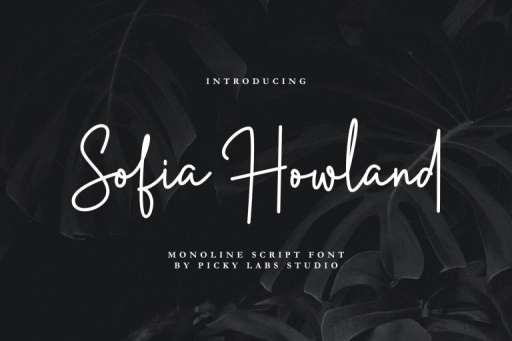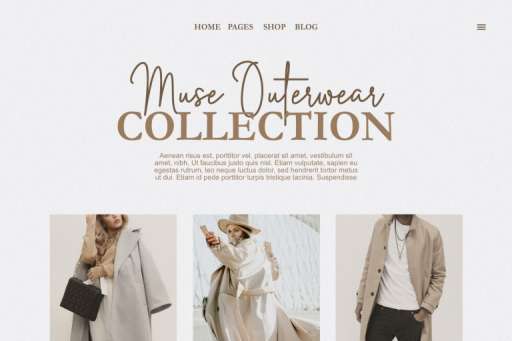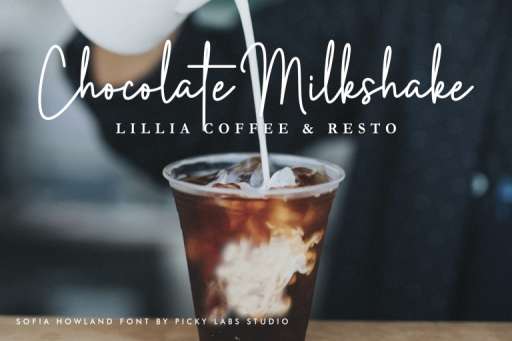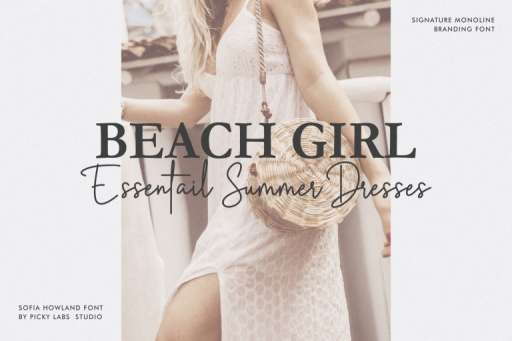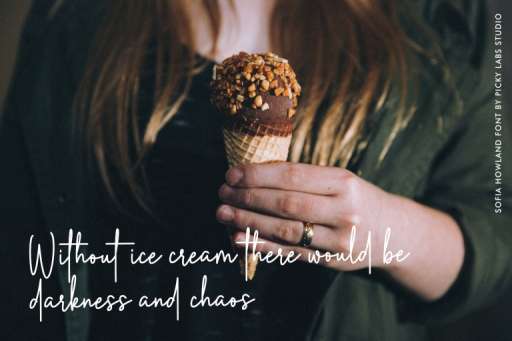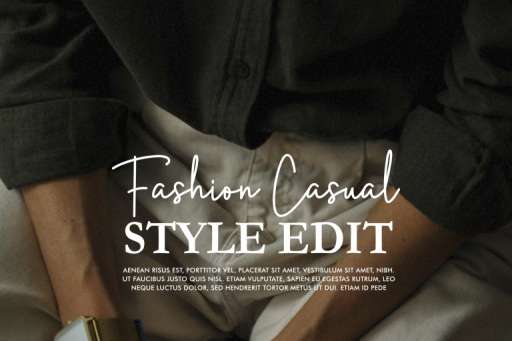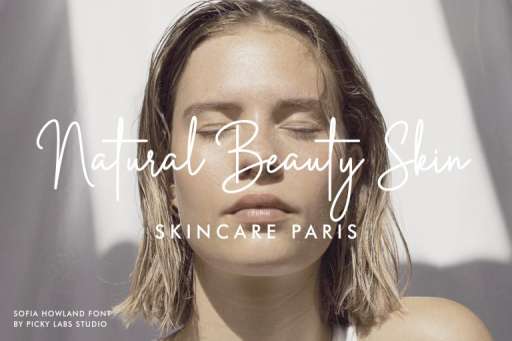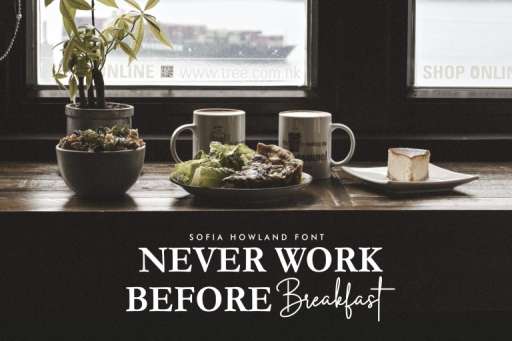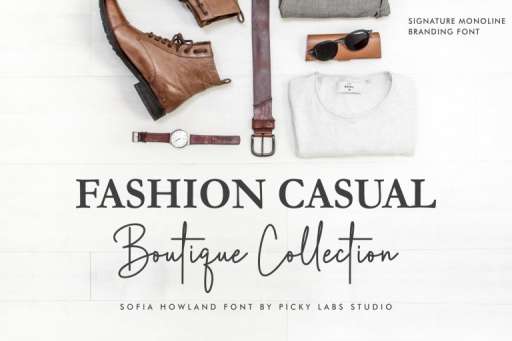
Sofia Howland Font - Business Branding Font From Jimtype Studio
Sofia Howland Font
Sofia Howland – Signature Business Font
Sofia Howland is a signature feminine font, every single letter has been carefully crafted to make your text looks beautiful. This font contains some ligatures. Sofia Howland matches apply in some designs such as the logotype, branding, product packaging, merchandise, social media project, headline magazine, headers, quotes, business cards, and more custom designs.
Sofia Howland Font